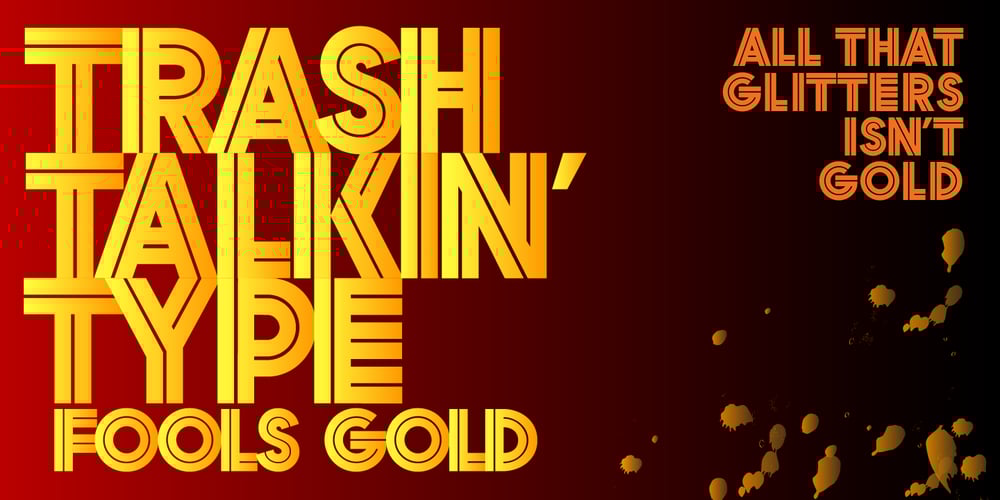
Fools Gold Font Family was designed by published by BA Graphics. Fools Gold contains 1 styles and family package options. A throwback to the 70s, a graphic design with a lot of different applications. You can use this font with a normal setting or a very tight setting even over lap it, it has such great flexibility. Experiment with the possibilities and you will be pleasantly surprised.